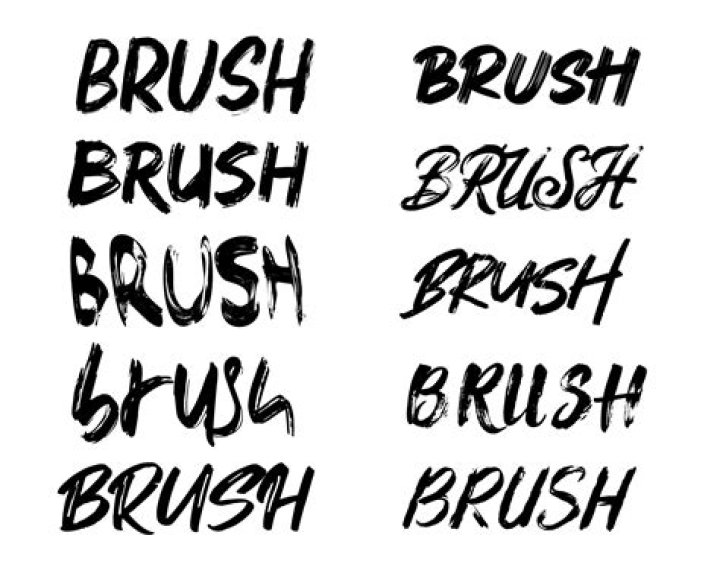
What is the brush font called?
Brush Script is a casual connecting script typeface designed in 1942 by Robert E. Smith for the American Type Founders (ATF). The face exhibits an exuberant graphic stroke emulating the look of handwritten letters with an ink brush.
Is there a font that looks like brush strokes?
1. Atmosphere. Atmosphere is a hand-drawn font with natural brush strokes to create an authentic brush texture. It includes upper and lowercase characters, numbers, punctuation, and symbols.
What font goes well with brush script?
Alex Brush is a gorgeous Brush Script font from TypeSETit. Available on Easil or Google Fonts. Perfect Font Pairing: Roboto Regular and PT Sans.
What font family is Brush Script MT?
This heavy, informal script looks as though it was written with a brush because its lowercase letters join together….Overview.
| Styles & Weights | Brush Script MT Italic |
| Designers | Smith, Robert E. |
What type of font is chiller?
Foundry. Overview Chiller is the work of British designer Andrew Smith, a chaotic, reckless fun font. Although the ink blots and stray strokes might look undisciplined, the forms of this typeface were carefully planned and it is surprisingly legible even in small point sizes.